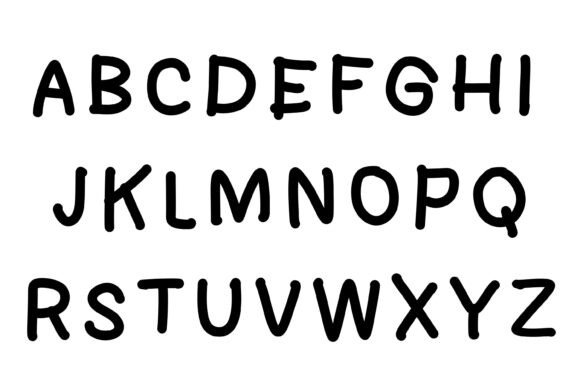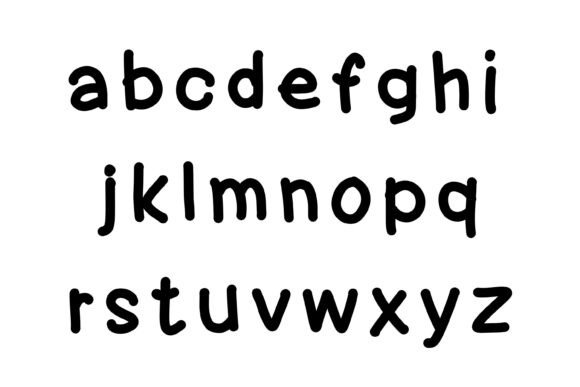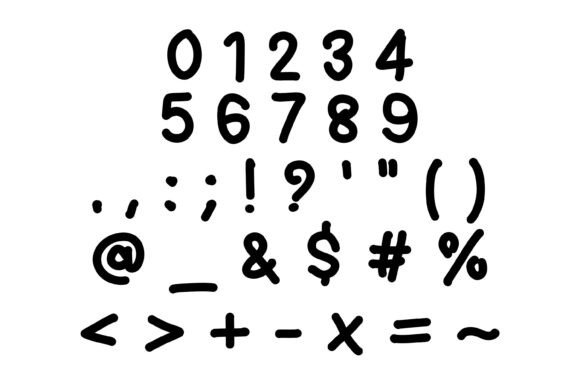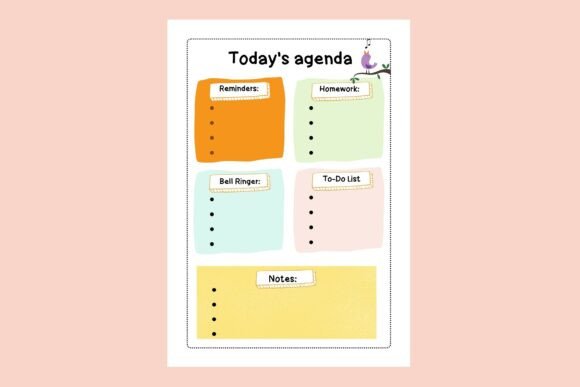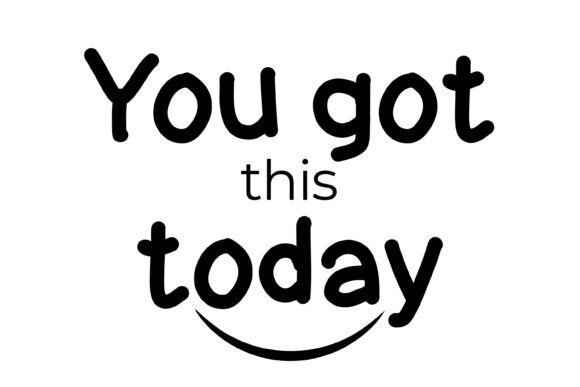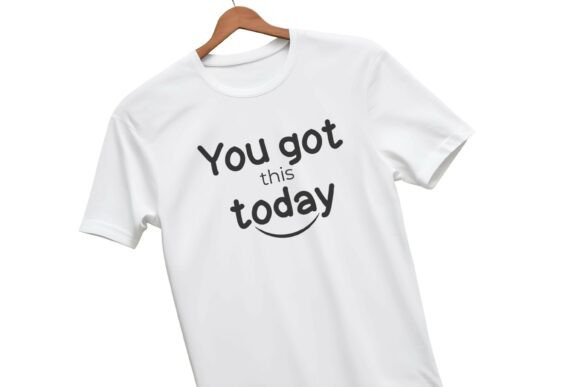
Introduction to Lineme Font
As a designer, there’s nothing quite like the thrill of bringing a creative project to life. Whether you’re working on a new logo, a set of stickers, or a planner page, the right font can make all the difference. That’s why we’re excited to introduce you to the Lineme Font, a friendly handwritten font that’s perfect for a wide range of creative applications.
With its smooth, rounded marker strokes, the Lineme Font is an instant favorite among designers looking for a high-quality, free download that’s easy to use. And the best part? It’s incredibly versatile, making it a valuable addition to any design resource. From classroom printables to minimalist logos, the Lineme Font is the perfect choice for anyone looking to add a touch of personality to their creative project.
Key Features of Lineme Font
- High-quality, modern design suitable for creative projects and various design resources.
- Features a transparent background, allowing for seamless integration with any design element.
- Includes a range of stylish characters, including uppercase and lowercase letters, numbers, and punctuation marks.
- Designed to be highly legible, even at small font sizes, making it perfect for digital and print applications.
- Perfect for designers and artists looking for a unique and creative font to elevate their work.
Honest Review: Lineme Font
As a designer, I’m always on the lookout for high-quality design resources that can elevate my creative projects. Recently, I stumbled upon the Lineme Font, and I’m excited to share my thoughts on this free download.
What works well: ✨ The Lineme Font is incredibly versatile, making it perfect for a wide range of design projects, from logos to social media graphics. Its clean and modern design aesthetic makes it easy to pair with other design elements. The font also includes a transparent background option, which is a great feature for designers who need to create visually appealing designs with a lot of depth.
- ✨ Excellent for creating visually appealing designs
- ✨ Highly versatile and suitable for various design projects
- ✨ Includes transparent background option
Limitations: ⚠️ While the Lineme Font is a great resource, it may not be the best option for designers who require a more extensive character set or advanced font features. Additionally, the font may not be suitable for professional or commercial use without purchasing a license.
Overall impression: I’m impressed with the Lineme Font, and I think it’s a great addition to any designer’s toolkit. While it may have some limitations, it’s a high-quality design resource that can help take your creative projects to the next level. Whether you’re a seasoned designer or just starting out, the Lineme Font is definitely worth checking out.
Lineme Font is ideal for creative projects that require a unique and elegant touch. Use it for wedding invitations, social media graphics, or product branding. With its high-quality design and transparent background, Lineme Font is a versatile design resource that can elevate any project.